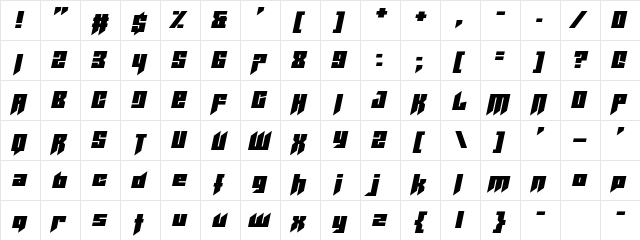
Helicopta Regular
Design Context for Helicopta Typeface
Helicopta is a composed and adaptable typeface that performs quietly and consistently across a wide range of design contexts.